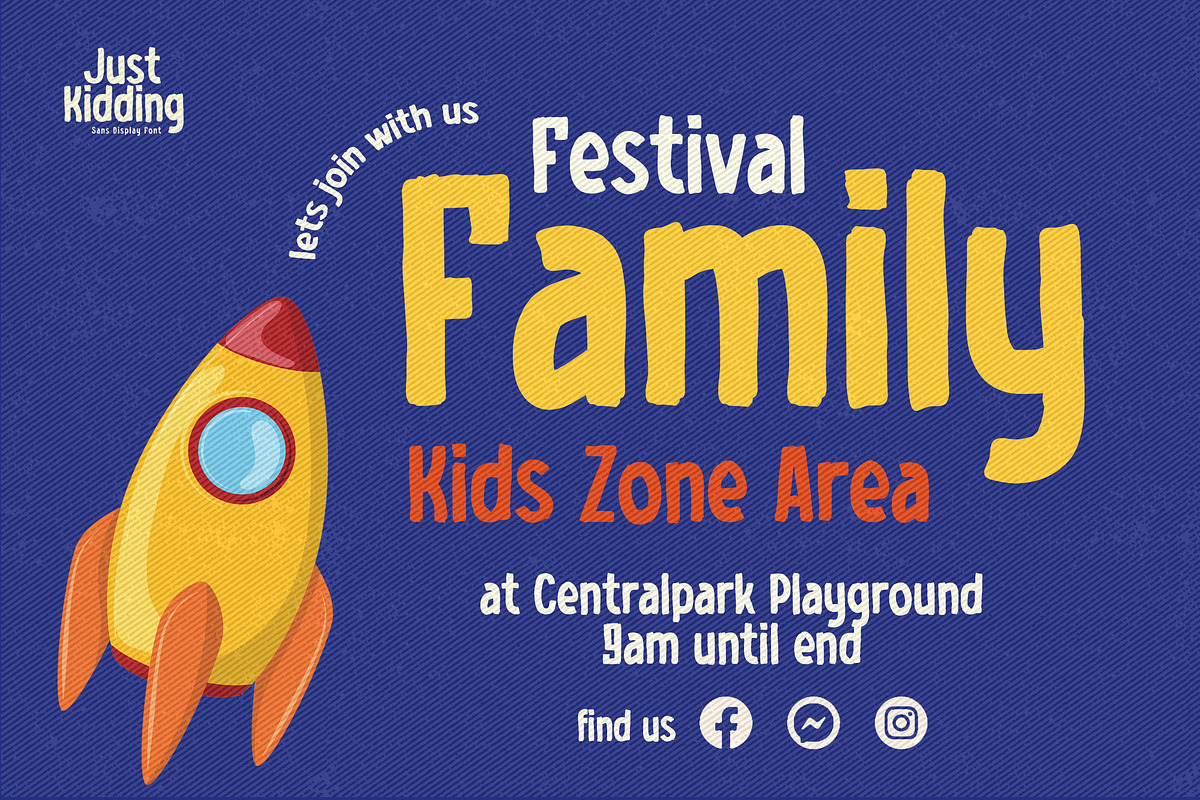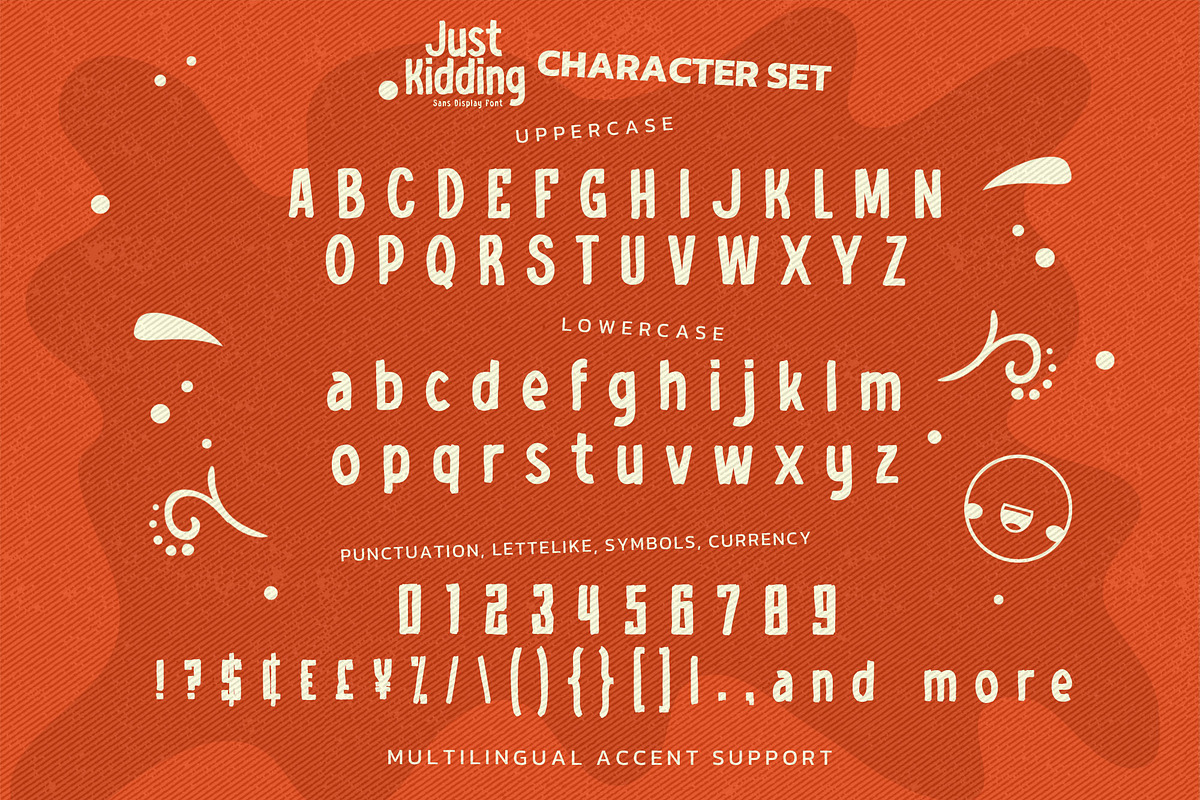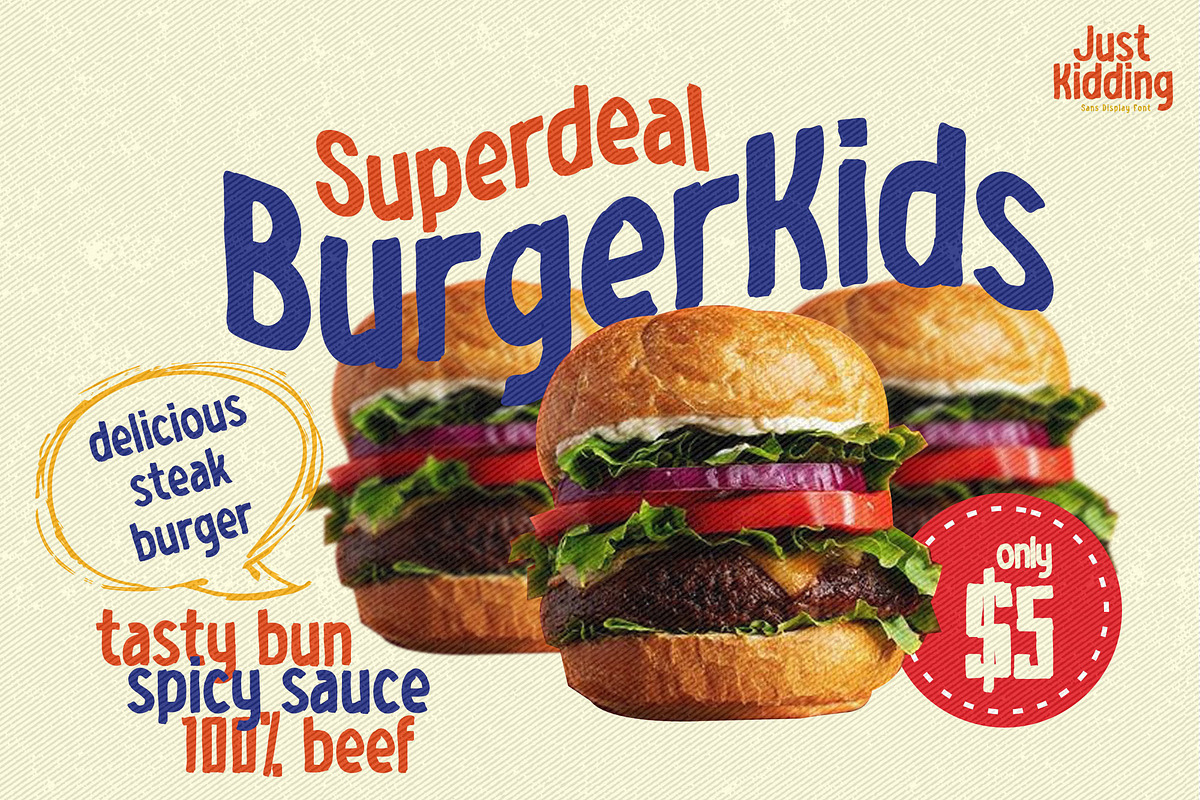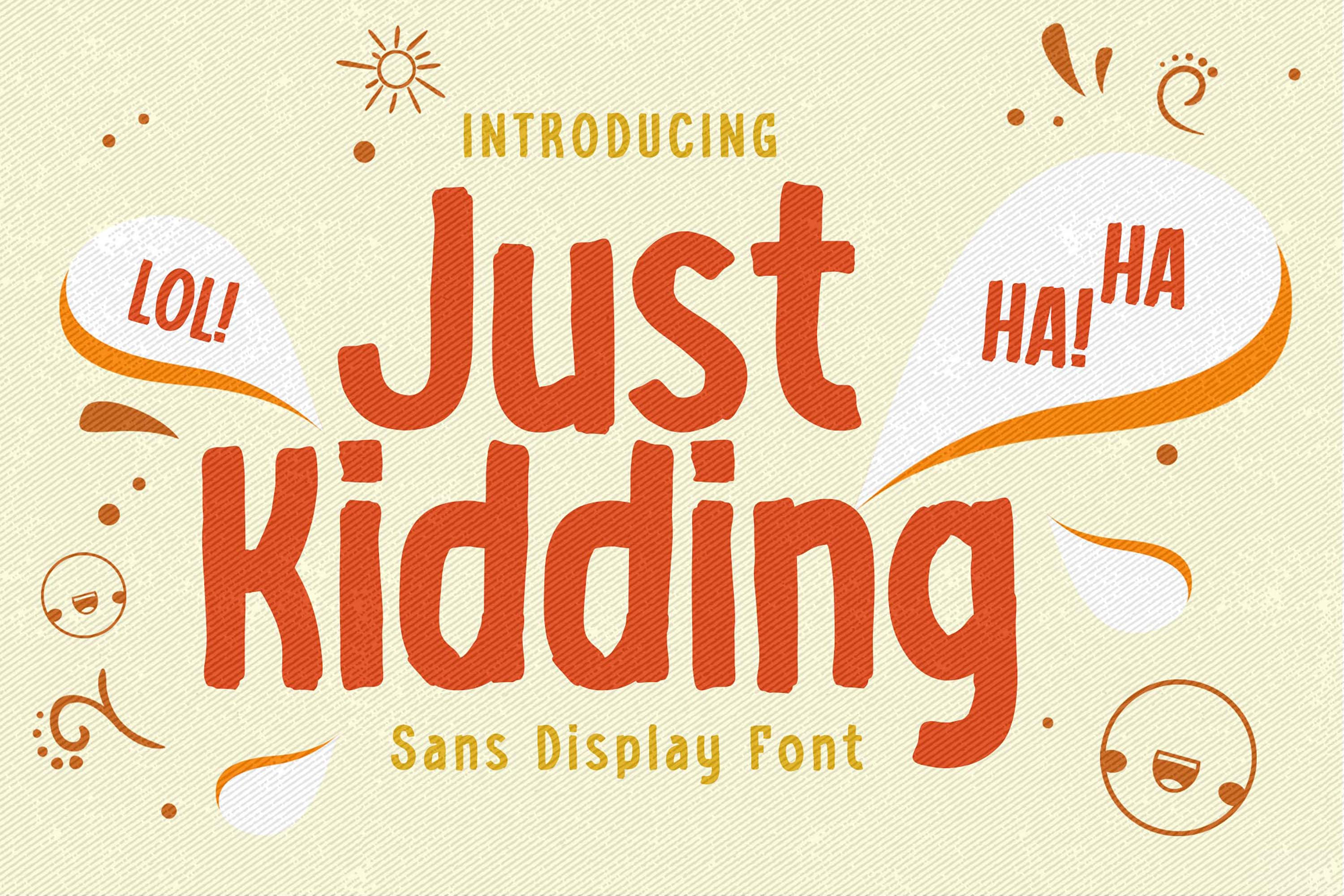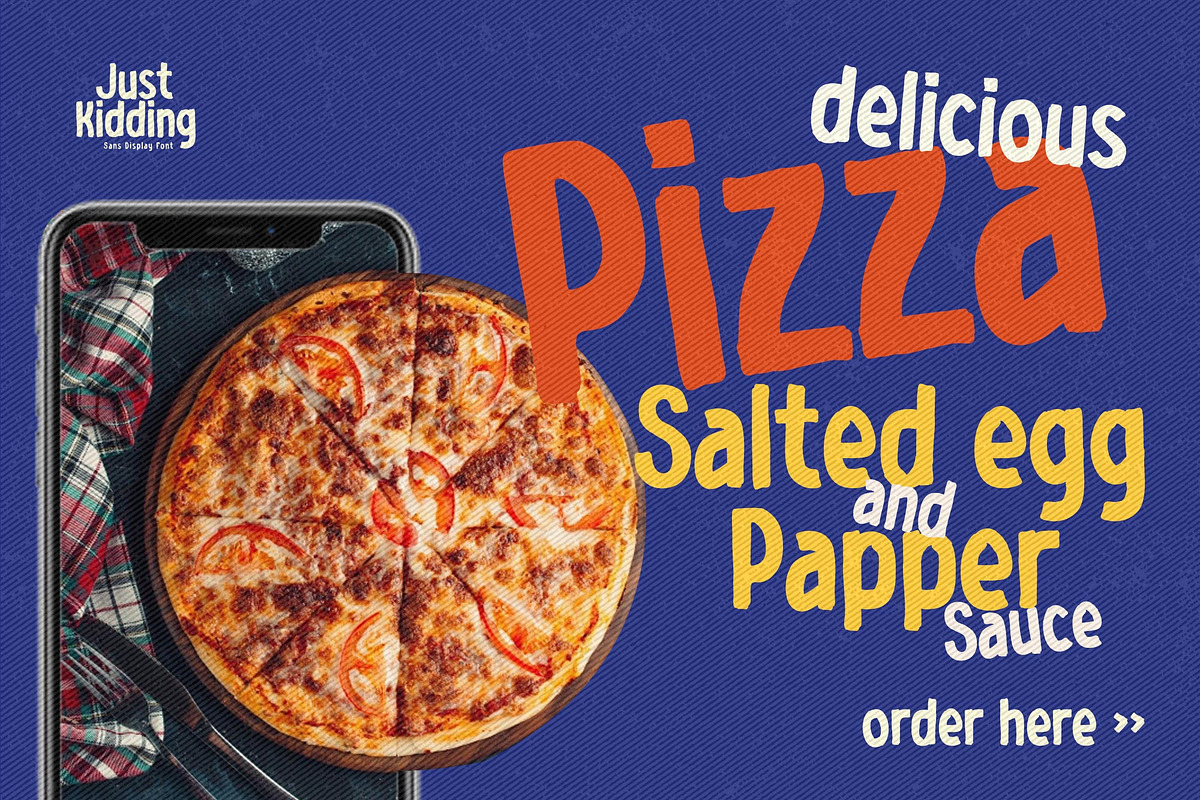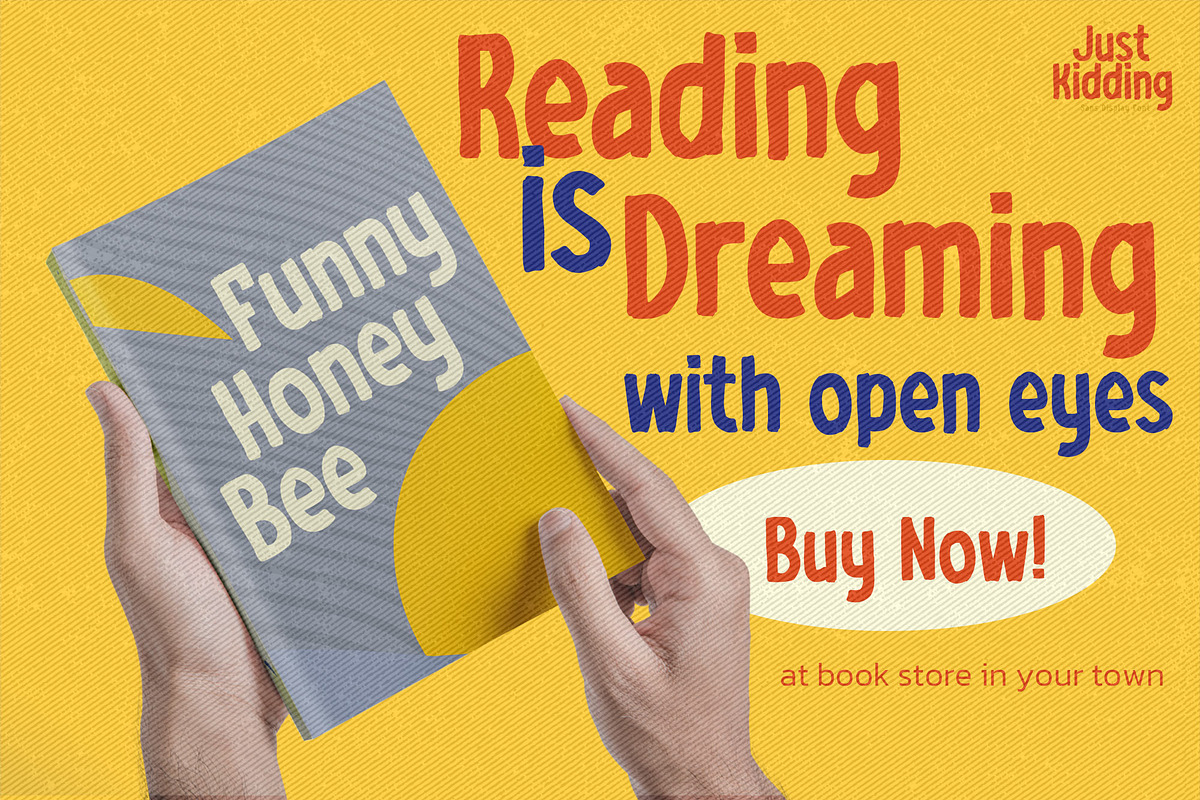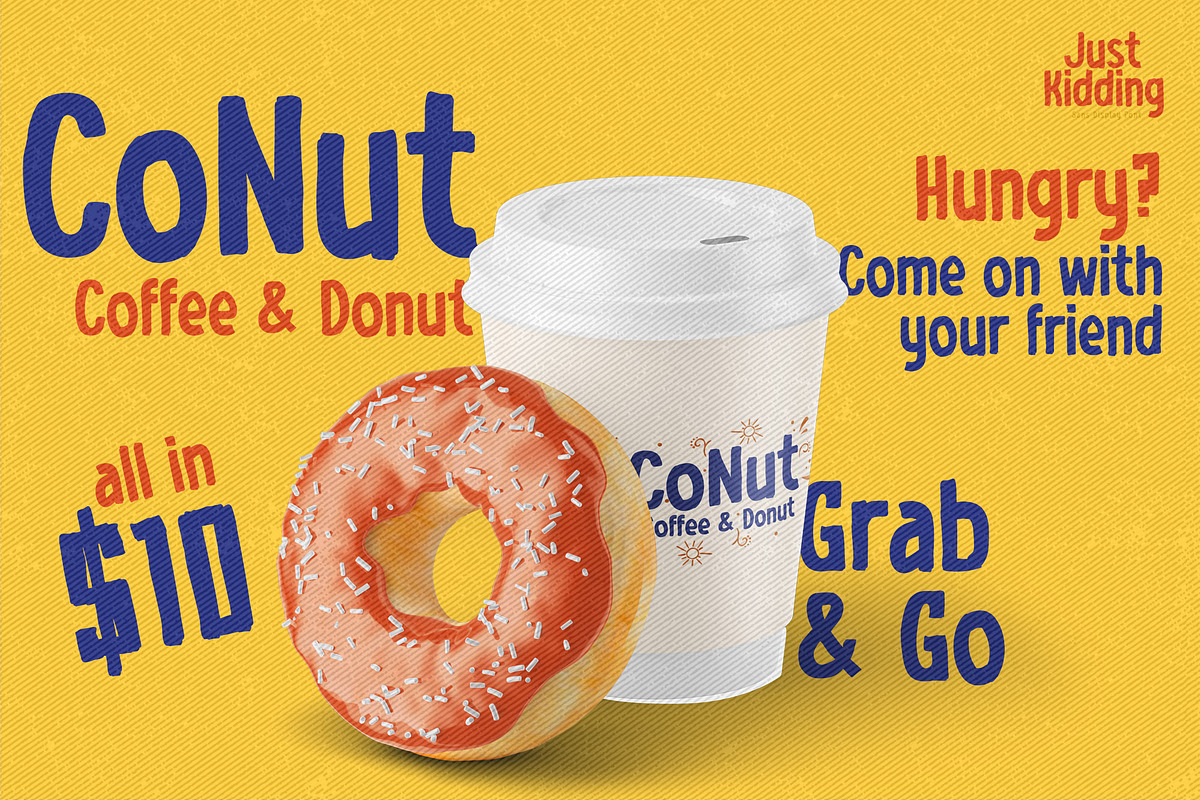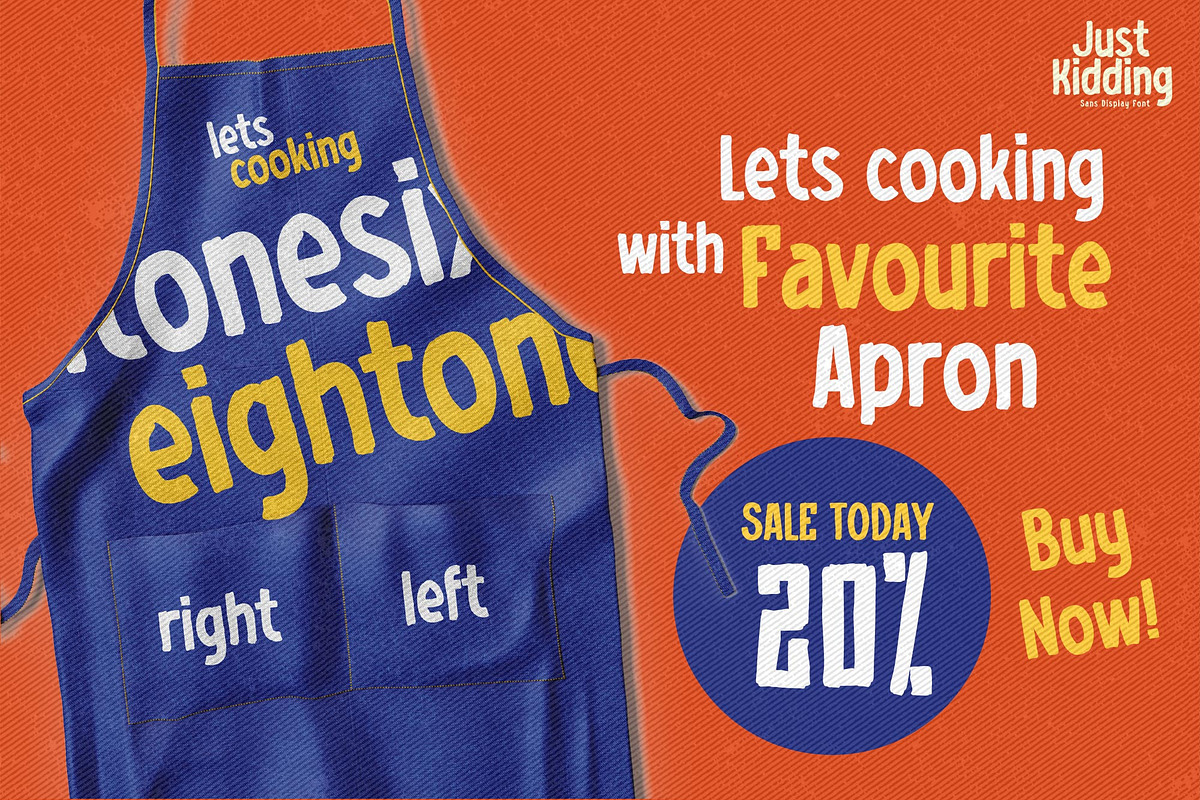
Just Kidding - Sans Display Font
Here comes a New font, Introducing Just Kidding is Sans Display Font, This Font Authentic that is written casually and quickly. Then scanned and carefully drawn into vector format.
This handmade font will make your design has a beautiful natural touch for each details. It is perfect for any design project as Invitation,logo, book cover, craft or any design purposes.this font is great for your creative projects such as watermark on photography, and perfect for logos & branding, invitation,advertisements,product designs, stationery, wedding designs,label ,product packaging, special events or anything that need handwritting taste.
That is why Just Kidding has charming, authentic and relaxed characteristic more natural look to your text with a more natural look to your text.